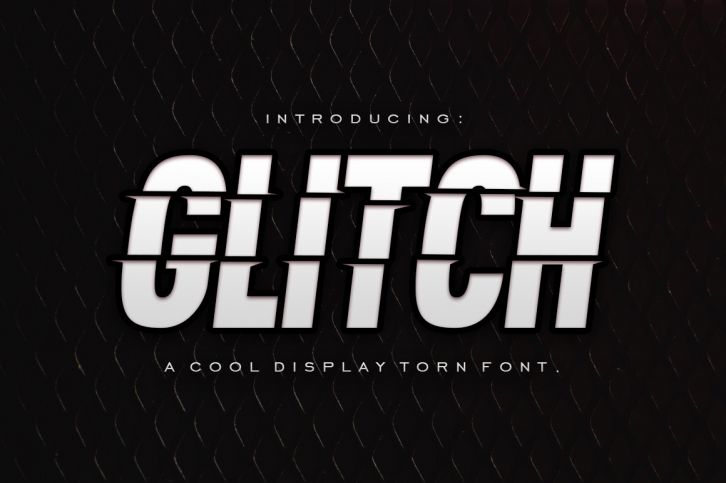
Glitch is the perfect and crazy display font for your classy projects. It looks like a sharp stroke and it is suitable for various creative projects such as company names, movie titles, vehicle repair shops, squad names, t-shirts, product names and so much more!